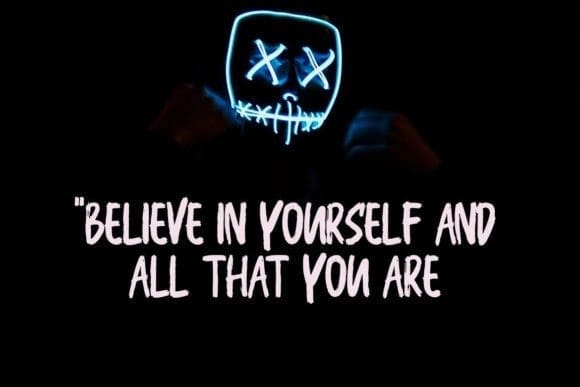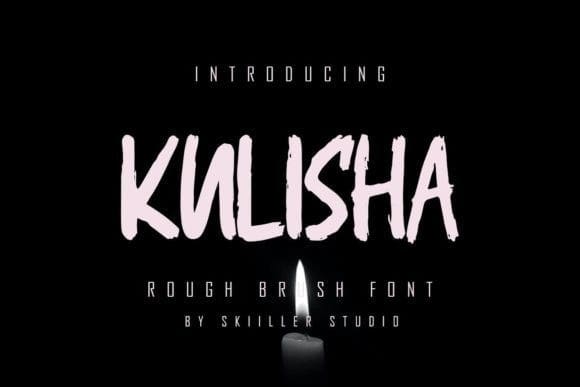
Kulisha Brush Font
Kulisha Brush Font is a textured brush display font with paint scratches. The original stroke of this font is suitable for film or commercial needs that can support your business or company.